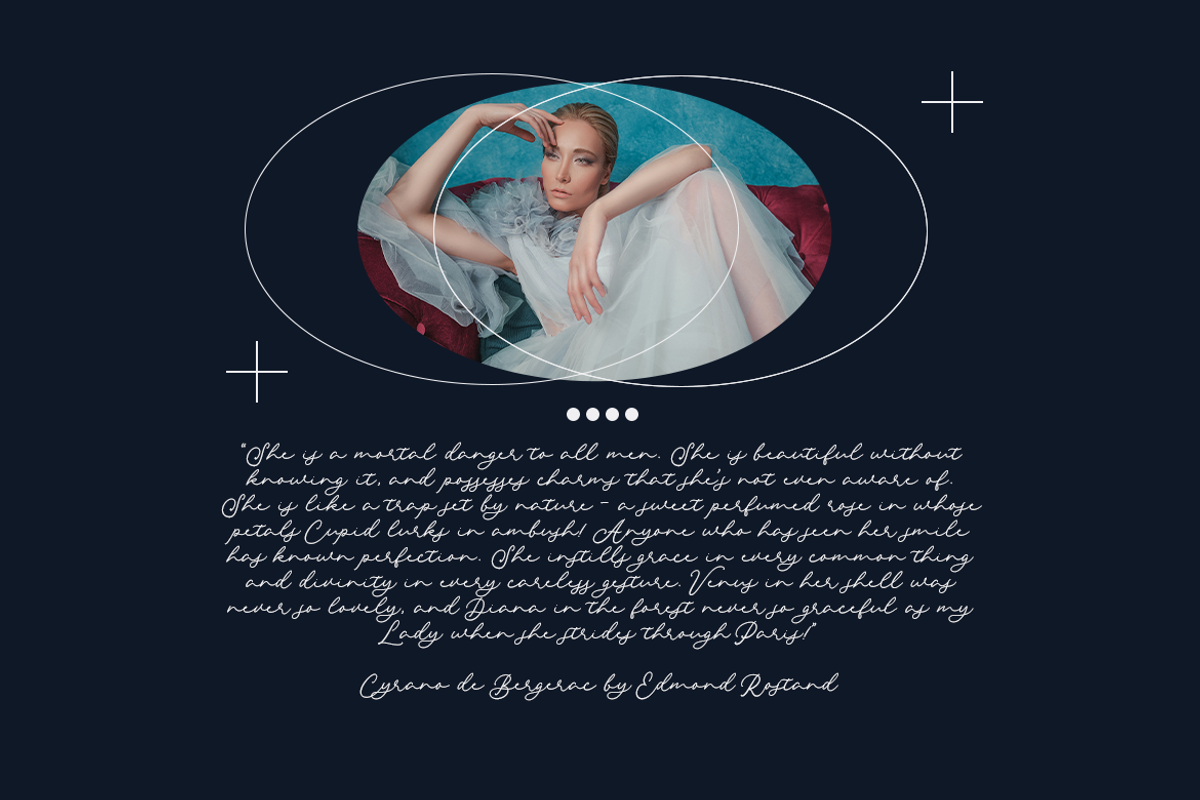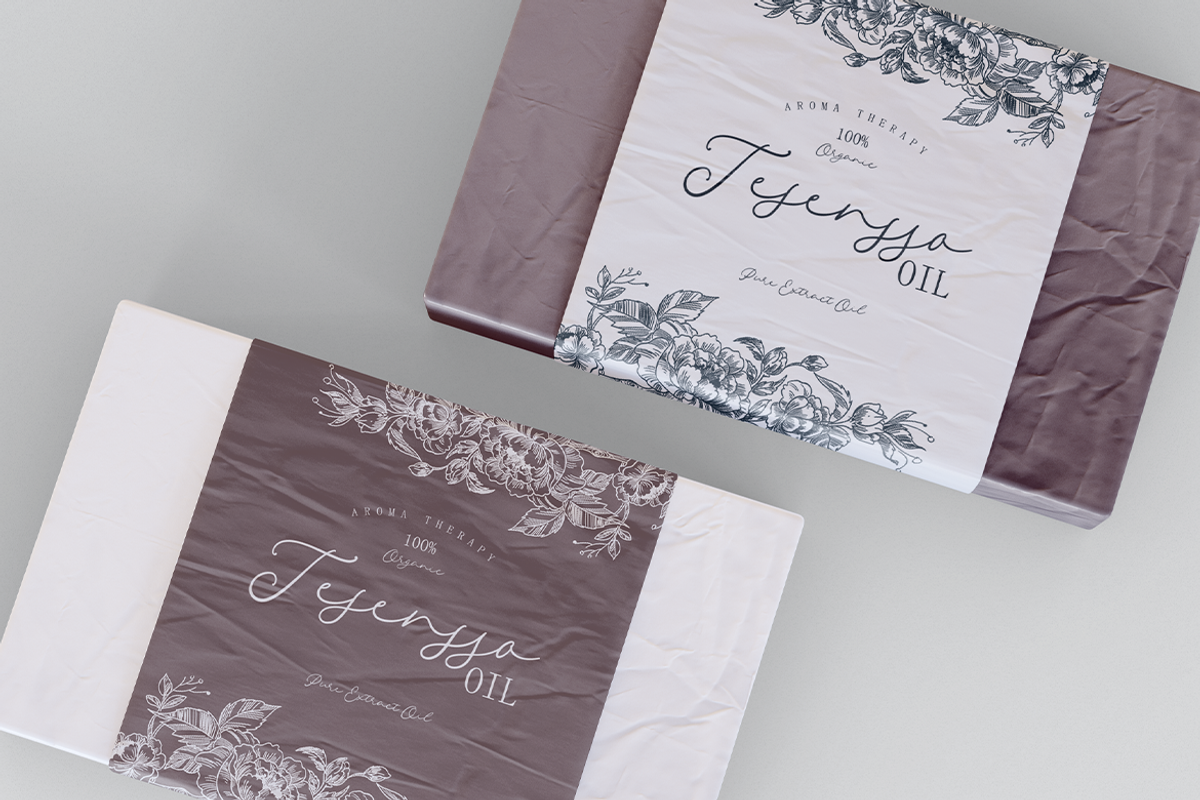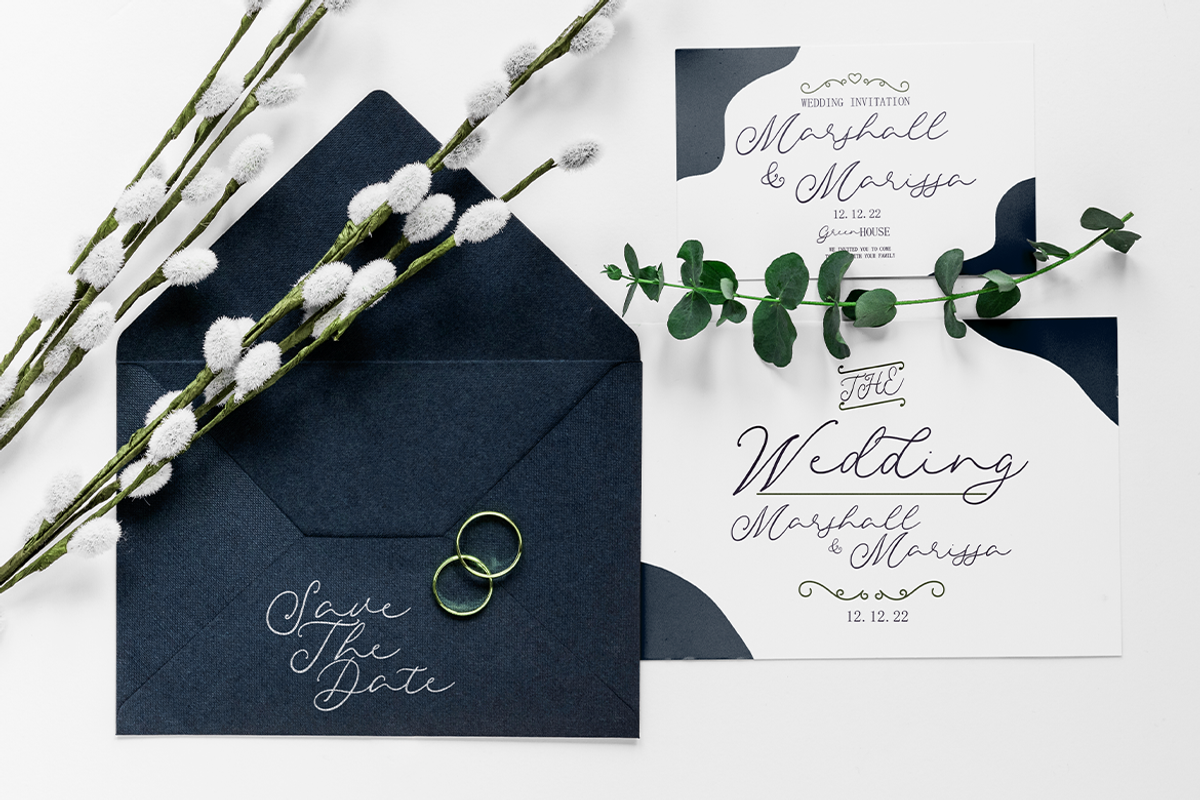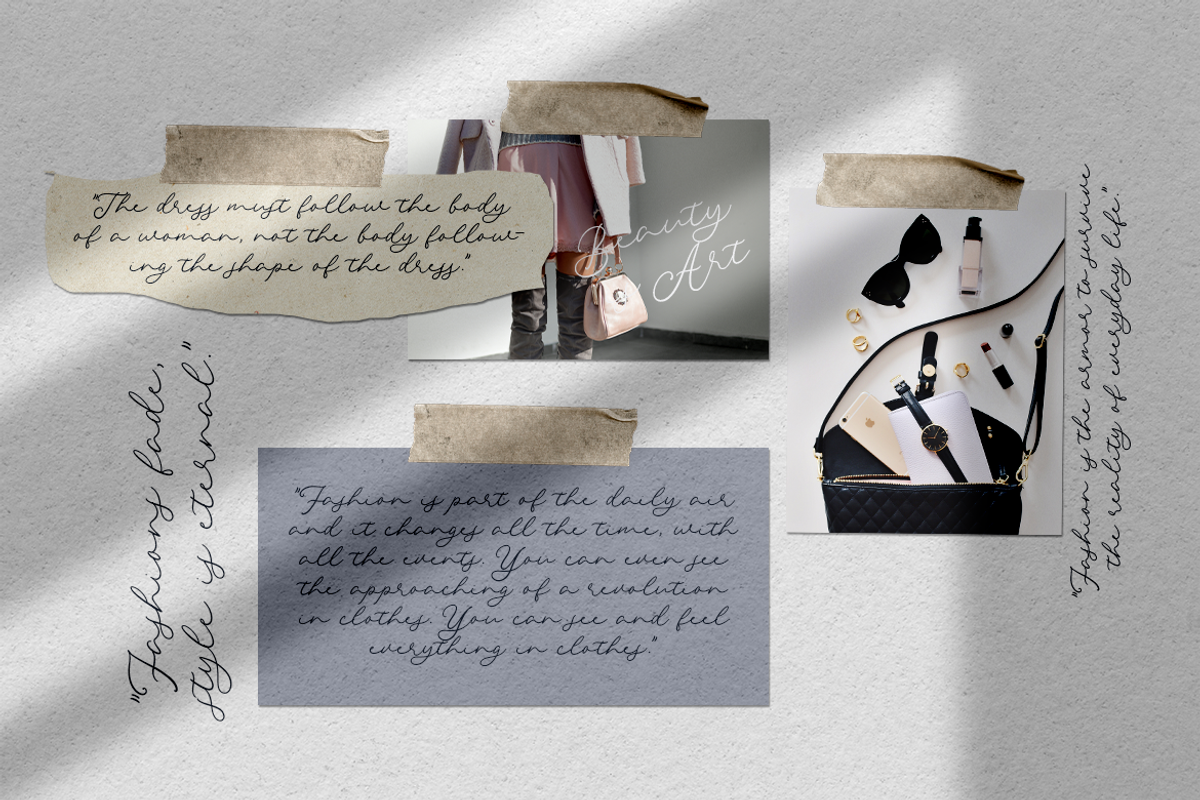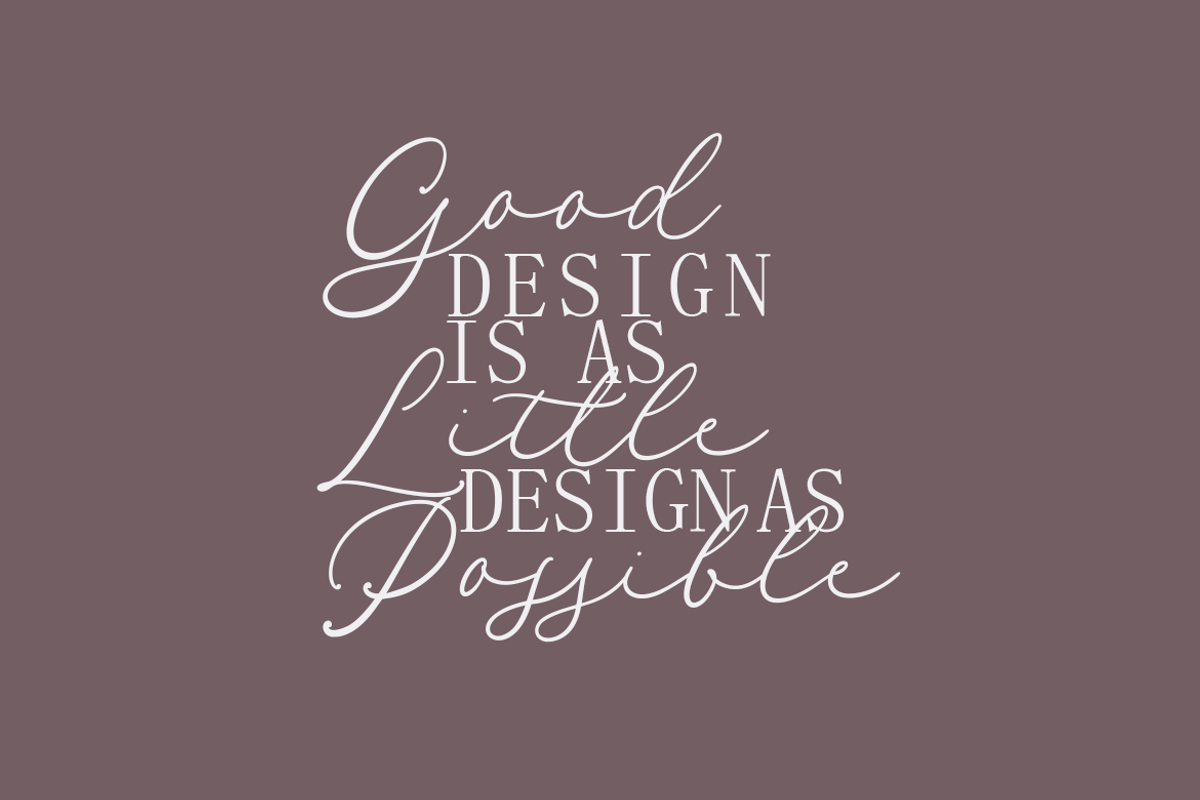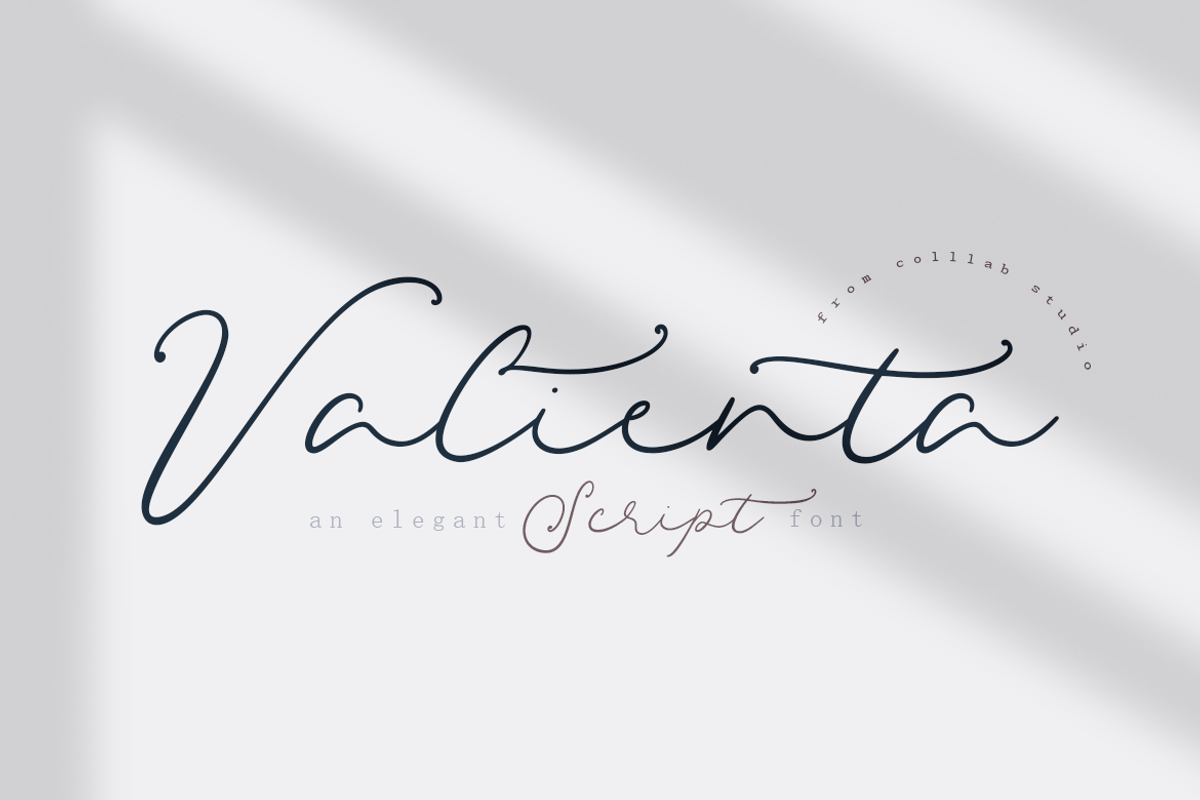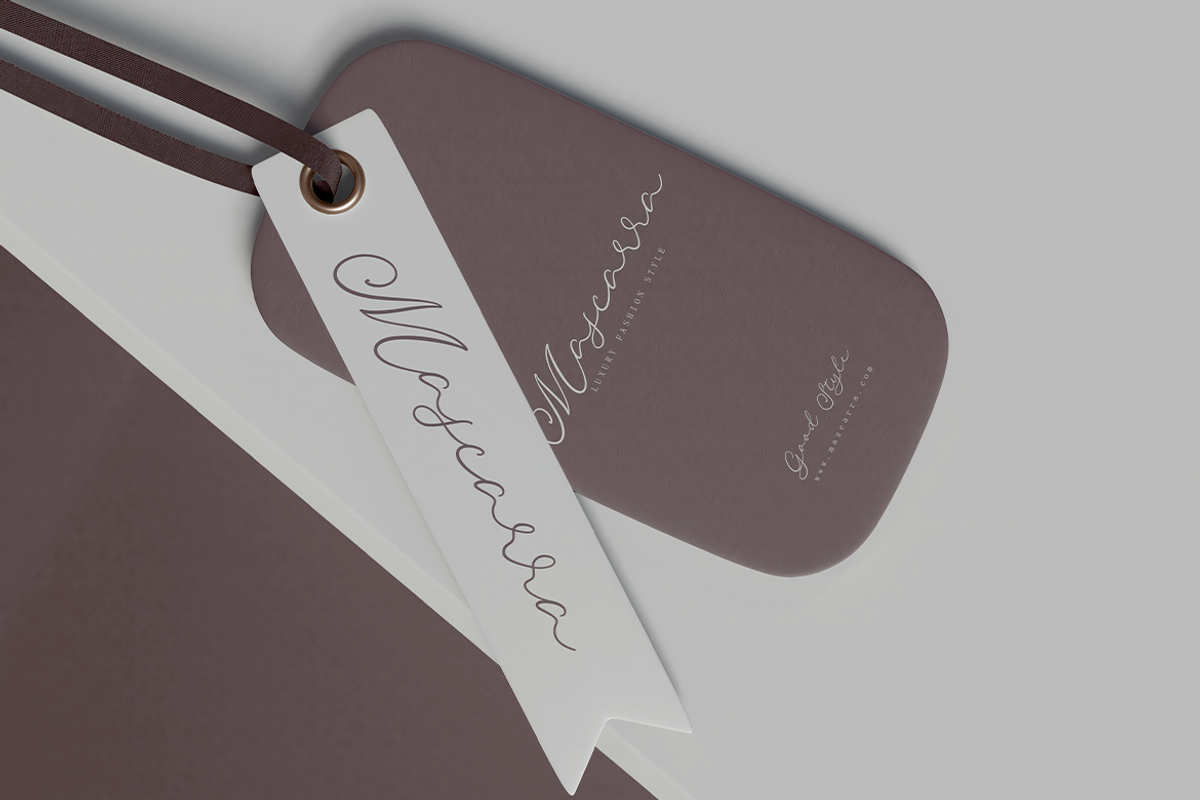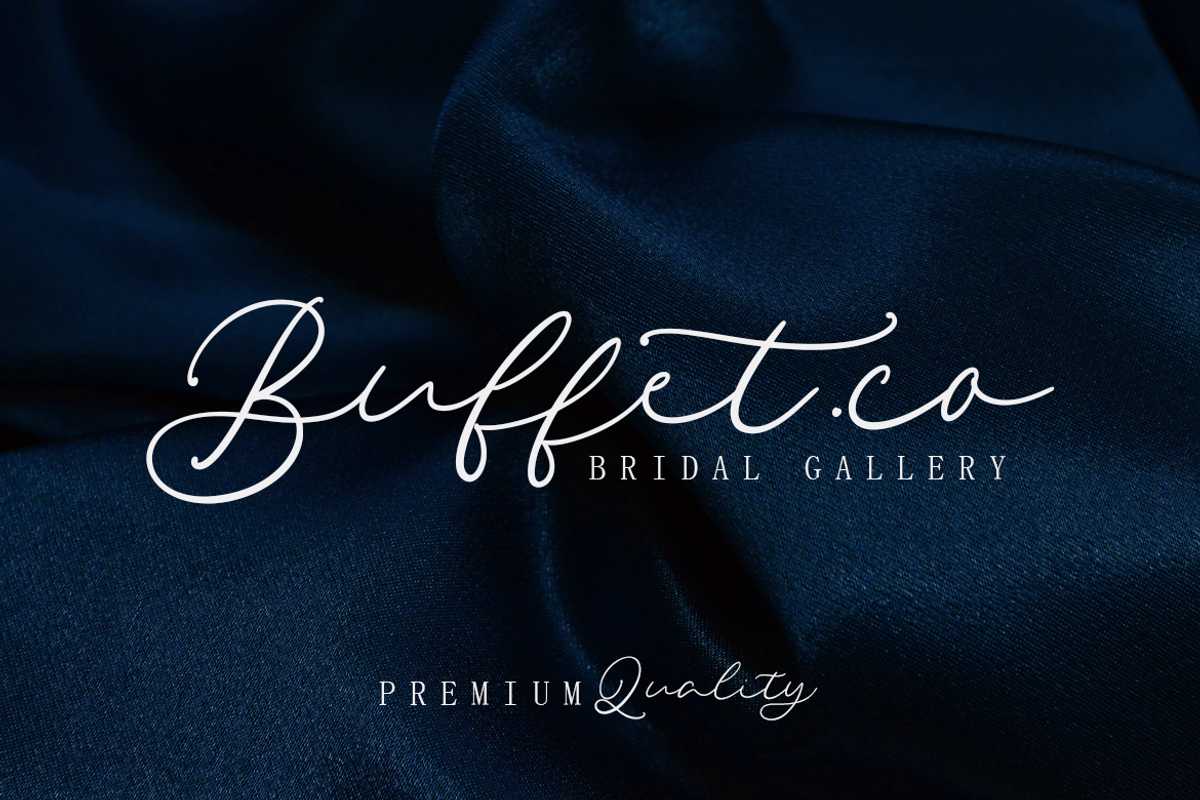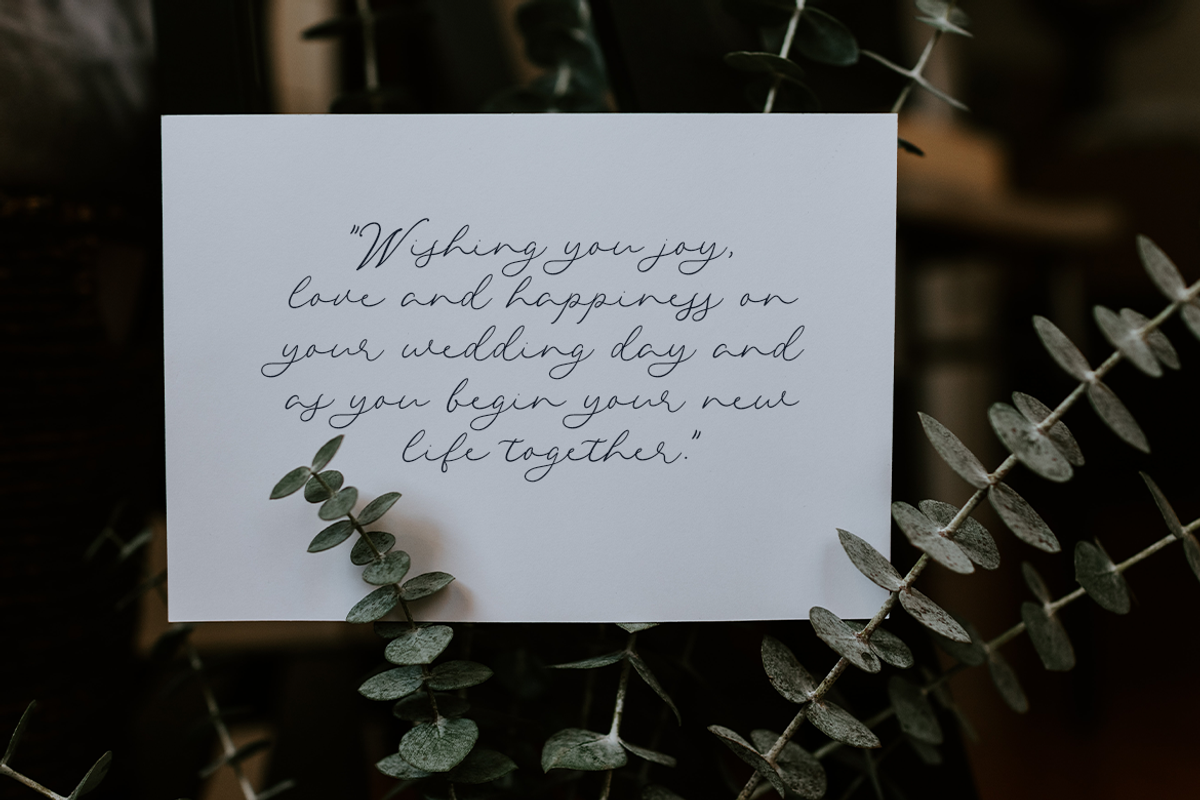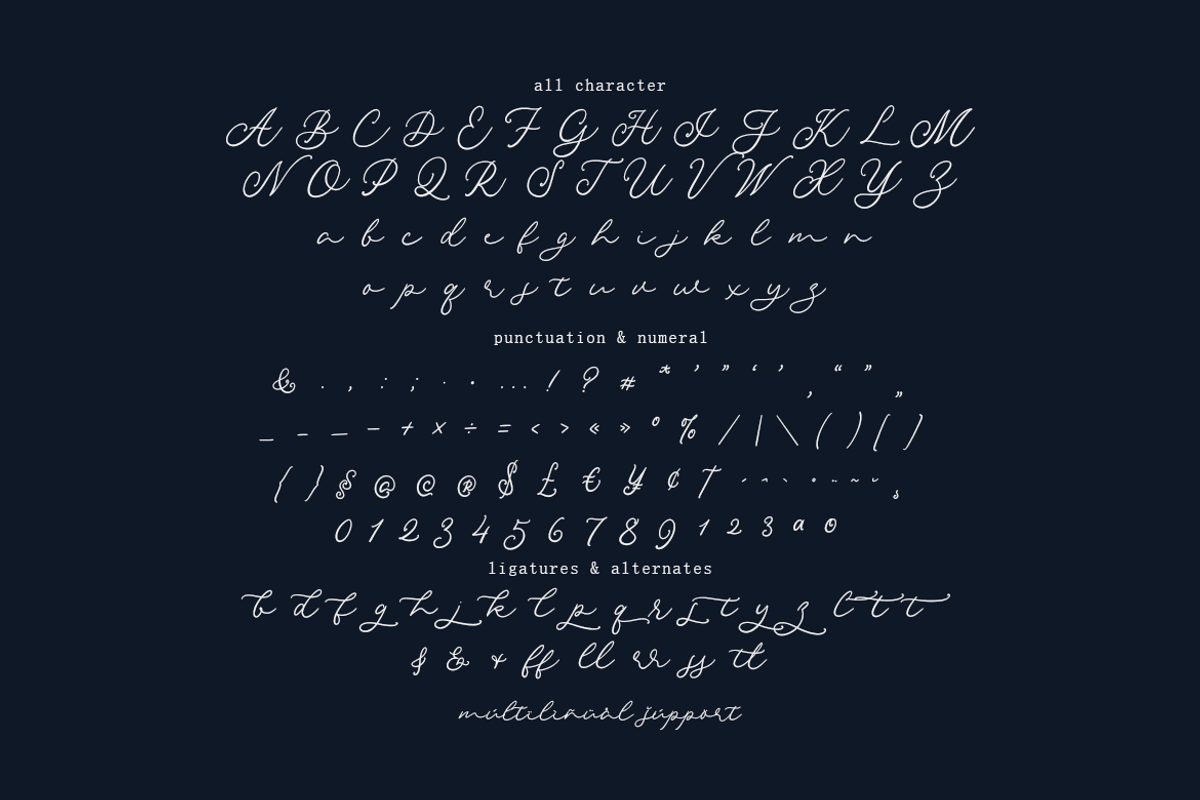
Valienta Script | An Elegant Script
Valienta Script is what you’re looking for. It’s an elegant typeface created to make your designs stand out from the crowd, and to add a touch of luxury.
- 200 + Glyphs,
- Sets of Ligatures & stylistics alternates
- Multilanguage Support ( 64 Languages )